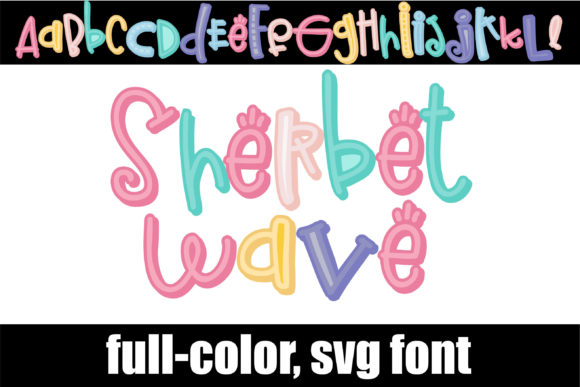
Dive into a world of whimsical delight with Sherbet Wave Font, a confectionary script that sparks joy with every character. Picture pastel-hued letters dancing across your digital canvas, creating an irresistibly playful ambiance that captivates hearts. OpenType full-color (SVG) technology empowers you to unleash a kaleidoscope of colors that bring your designs to life.
Visualize your Instagram feed transformed into a vibrant masterpiece, where every post radiates with a unique personality. Engage your audience with eye-catching quotes and captivating captions that pop off the screen. Let your creativity run wild as you craft enchanting logos, eye-catching website headers, and social media graphics that leave a lasting impression.